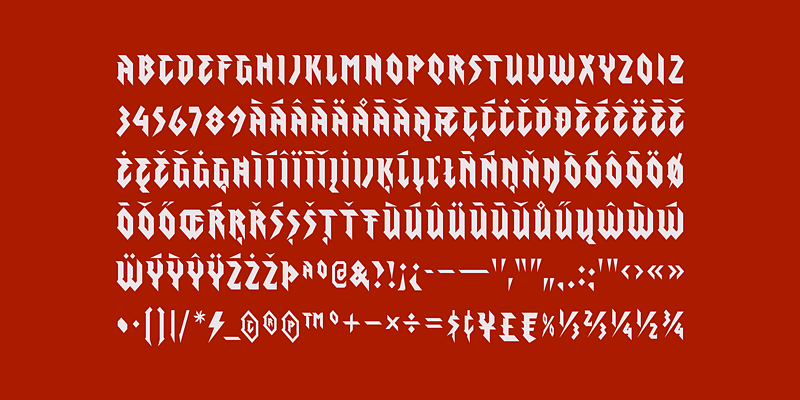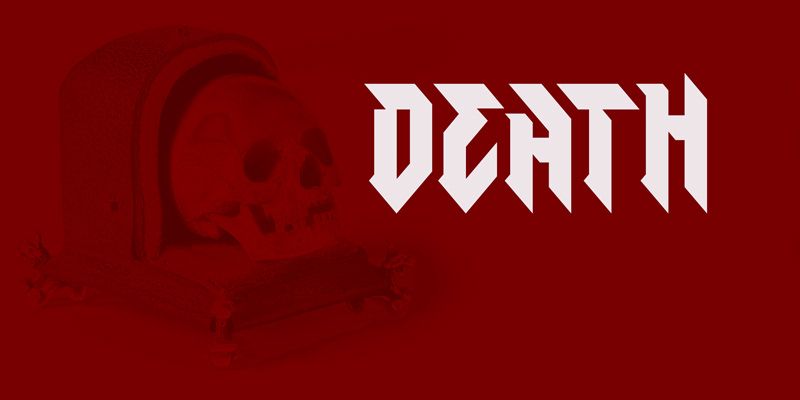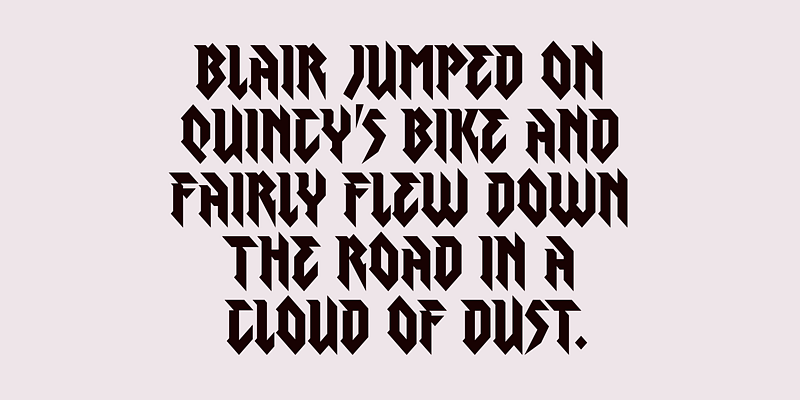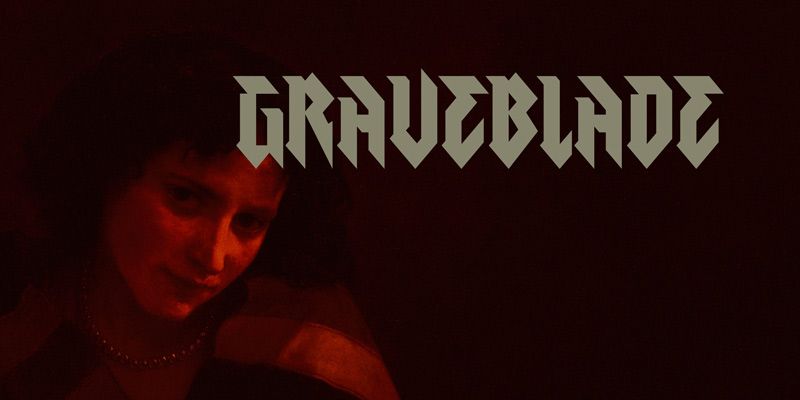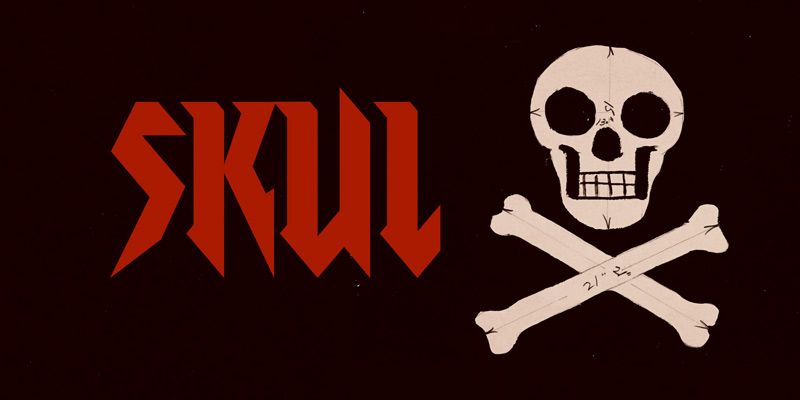
Graveblade compresses the energy of blackletter and heavy-metal lettering into sharp, readable display forms. Blade-like strokes, angled joins, and abrupt direction changes give short words a menacing profile without burying their structure. It belongs on fight cards, wrestling graphics, metal releases, horror titles, and game factions where a name has to strike quickly on a poster, screen, or shirt. Its condensed shape helps large lettering fit narrow merchandise panels and vertical layouts. Use Graveblade for the main declaration: an event name, fighter nickname, album title, or faction insignia.